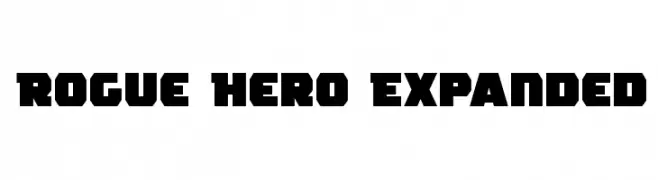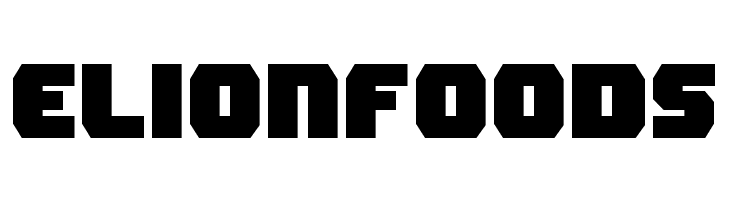
A bold, left-slanted font with high contrast and tight spacing, perfect for impactful designs.
A bold, condensed, and italic font with a dynamic and modern style.
A bold, expanded font with a strong, geometric design ideal for impactful headlines.
A bold, angular font with a dynamic, lightning-inspired design.
A bold, impactful font with thick, uniform strokes and a strong presence.
A bold, futuristic font with geometric shapes and sharp angles.
A bold, geometric font with strong lines and a modern aesthetic.
A bold, geometric font with strong, consistent letterforms.
A bold, geometric font with strong, solid letterforms and a modern aesthetic.
A bold, impactful slab serif font with strong lines and pronounced serifs.
A bold, modern font with thick, uniform strokes and geometric shapes.
A bold, angular font with high contrast and a dynamic presence.
A bold, geometric sans-serif font with a strong, block-like appearance.
A bold, italicized font with strong, dynamic letterforms and a modern, impactful style.
A bold, condensed font with strong vertical lines and minimal contrast.
A bold, dynamic font with a strong, slightly condensed style.
Bold, italicized font with a futuristic and dynamic style.
A bold, geometric font with a modern and assertive style.
A bold, italic sans-serif font with a dynamic and modern style.
A bold, heavy font with a strong, geometric style ideal for impactful headlines.
A bold, robust font with thick strokes and a strong presence.
A bold, edgy font with sharp, angular design and tribal-like embellishments.
A bold, condensed italic font with high contrast and dynamic style.
A bold, geometric font with a modern and impactful design.
A bold, impactful font with thick, block-like letters for strong visual presence.
A bold, dynamic font with sharp, angular edges and a fierce, energetic style.
A bold, industrial font with a textured, mechanical appearance.
A bold, rugged, and condensed font with a distressed appearance.